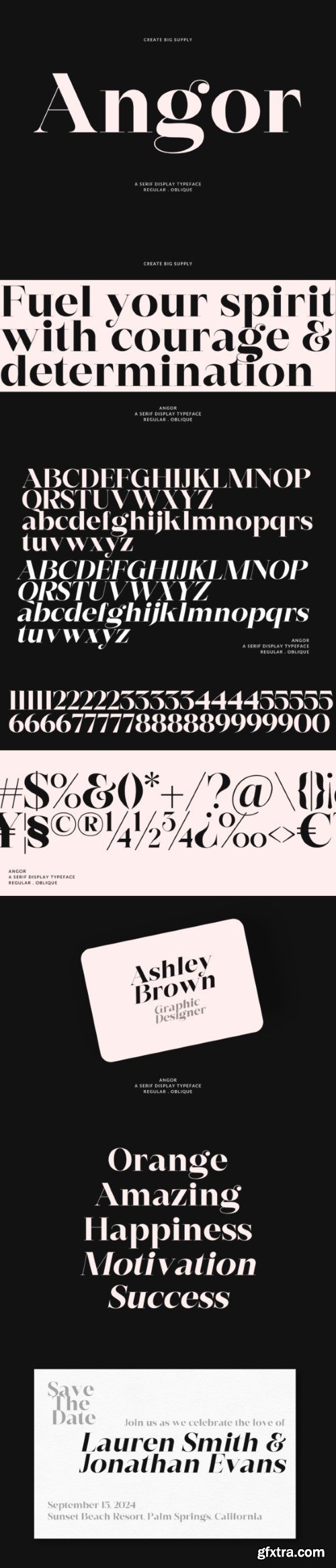
昂格字体
Angor offers a combination of uppercase and lowercase characters, allowing for flexibility in a variety of design uses. Whether you are designing attention-grabbing headlines, impactful posters, or visually appealing branding materials, Angor's bold serif style demands attention and adds an element of elegance to your work. With an extensive collection of numbers and punctuation marks, Angor guarantees clear and efficient communication of your message across different platforms and mediums. Its ability to support multiple languages enables you to effortlessly connect with audiences worldwide, making it an ideal choice for global projects.